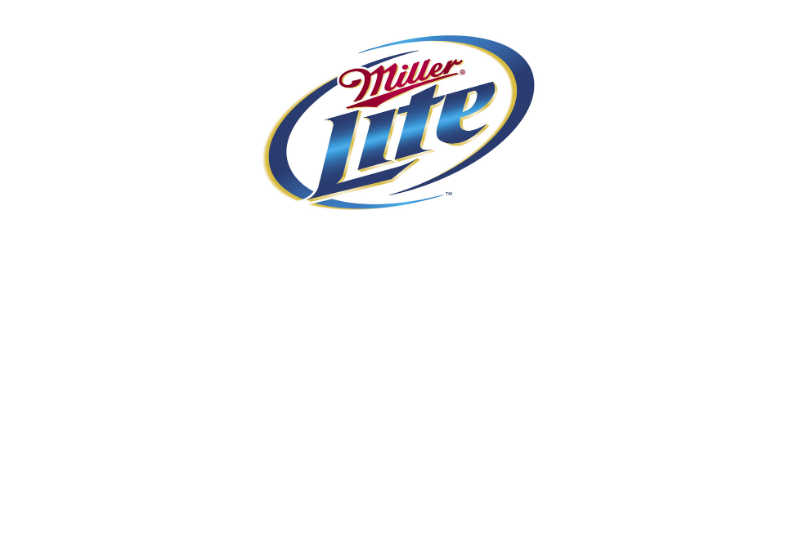
Miller Lite Font Generator
About the Miller Lite Font Generator
Miller Lite is a cornerstone of American beer culture, and its typography reflects that straightforward, no-frills Americana identity β€” bold, unpretentious lettering in the brand's iconic blue-and-silver palette. The Miller Lite font style communicates cold refreshment, sports fandom, and the classic tailgate spirit that has defined the brand for generations.
• Tailgate and sports viewing party graphics
• Beer-themed event banners and decorations
• Fantasy sports league branding
• Bar and pub promotional mockups
• Social content for beer and sports enthusiast accounts